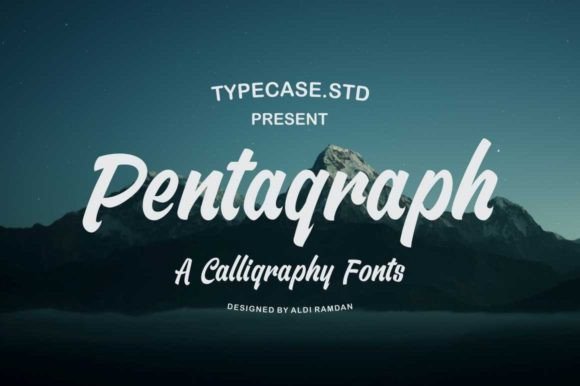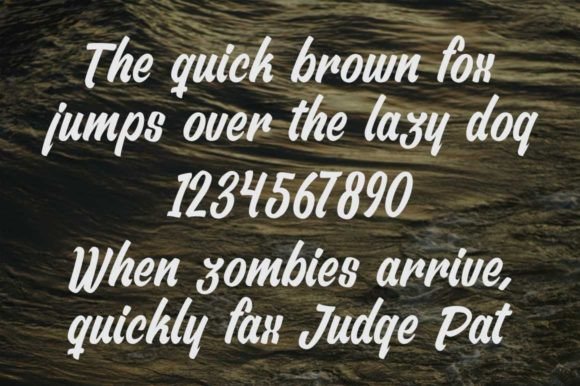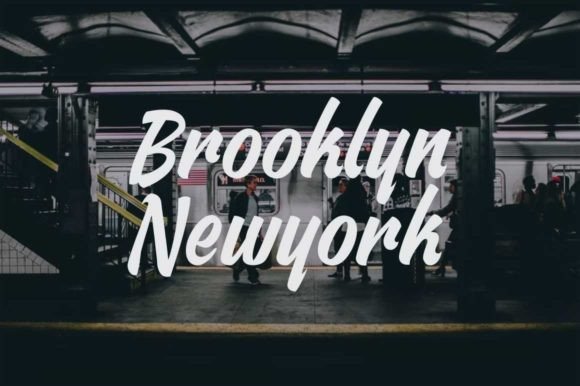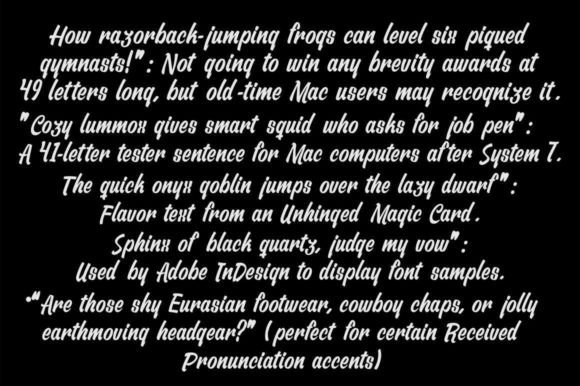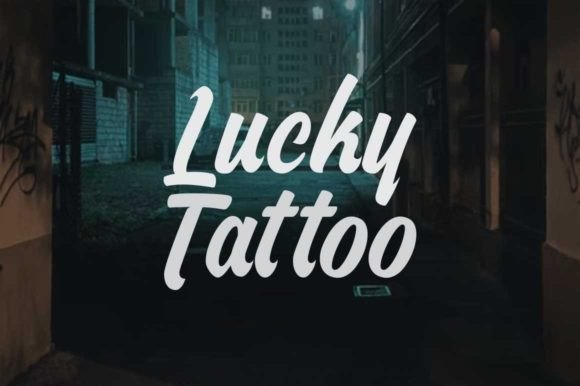
Pentagraph Font
About Pentagraph Font
“Pentagraph” stands out as an elegant and original handwritten font, boasting exclusive characters that add a touch of uniqueness to your special projects. This font is designed to look stunning on various applications, making it a versatile choice for wedding invitations, promotions, events, branding, advertising, T-shirts, books, name cards, logos, posters, signatures, and more. Incorporate “Pentagraph” into your designs, and witness how it transforms them into something truly spectacular.
The elegance of “Pentagraph” is apparent in its carefully crafted characters, which contribute to a sophisticated and refined aesthetic. This makes it particularly suitable for special projects where a touch of exclusivity and originality is desired. Whether used in formal settings like wedding invitations or promotional materials, the font adds a level of sophistication that enhances the overall visual appeal.
In promotional and advertising materials, “Pentagraph” brings a distinctive flair to your messaging. Its original handwritten style stands out, capturing attention and conveying a sense of authenticity. The font’s versatility ensures that it adapts seamlessly to various promotional contexts, from T-shirts to posters.
For books, name cards, and logos, “Pentagraph” offers a unique typographic solution. Its elegant and original design contributes to a memorable and visually appealing representation of your brand or project. The exclusive characters make your designs stand out, leaving a lasting impression on your audience.
In signatures and events, “Pentagraph” adds a personalized and stylish touch. The font’s originality allows you to create signatures and event materials that are both elegant and distinctive. Its adaptability makes it suitable for a wide range of creative applications.
The promise of a spectacular appearance is embedded in the versatility of “Pentagraph” across different design projects. By incorporating this font, you have the opportunity to elevate your creations, making them visually striking and memorable.
In essence, “Pentagraph” is not just a font; it’s a design asset that brings elegance and originality to your special projects. Embrace its exclusive characters and let them enhance the sophistication of your wedding invitations, promotions, events, branding, and more. Let “Pentagraph” be the element that transforms your designs into spectacular and visually captivating works of art.